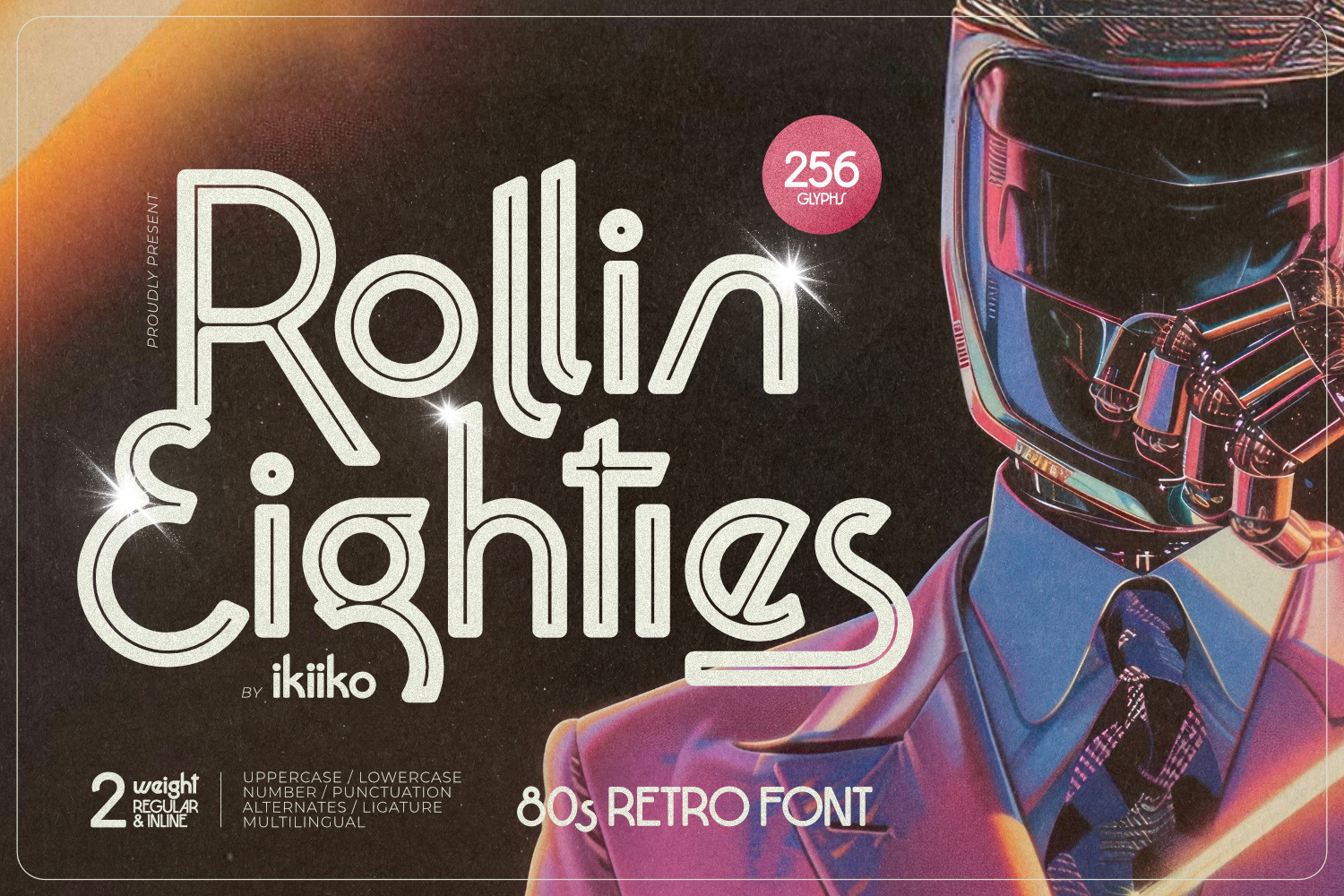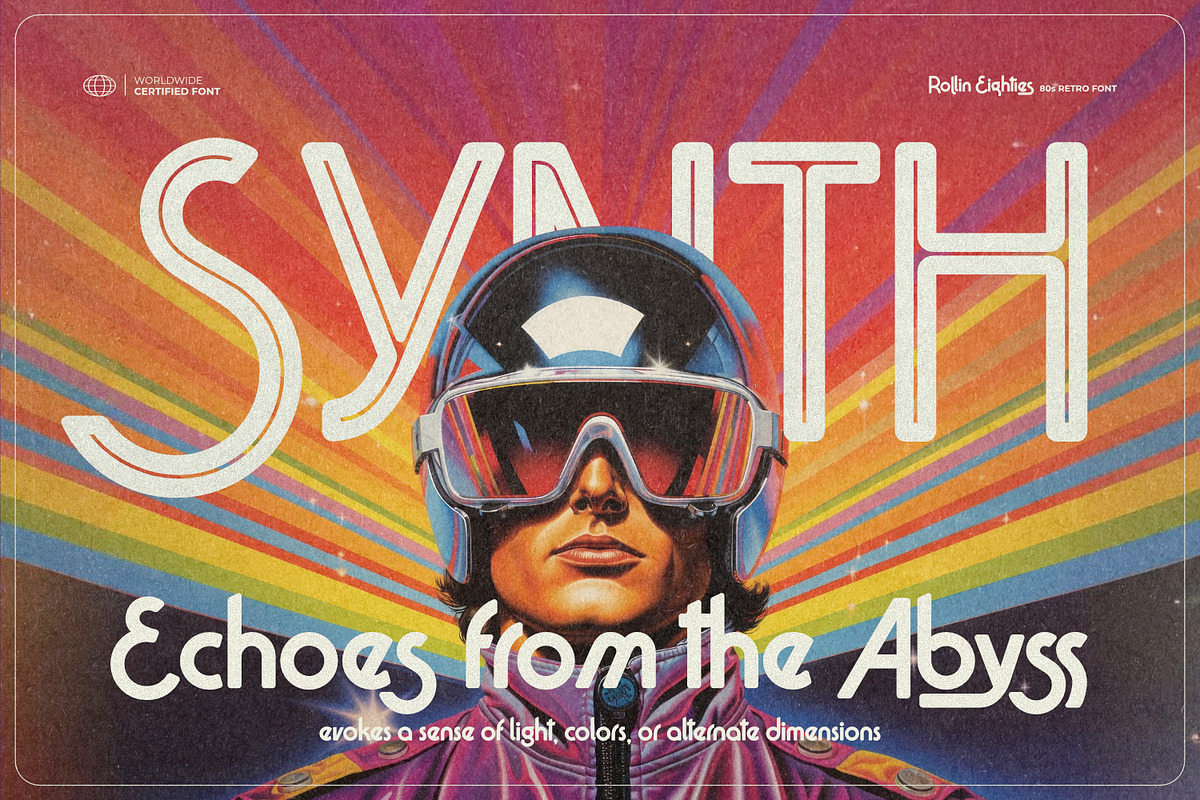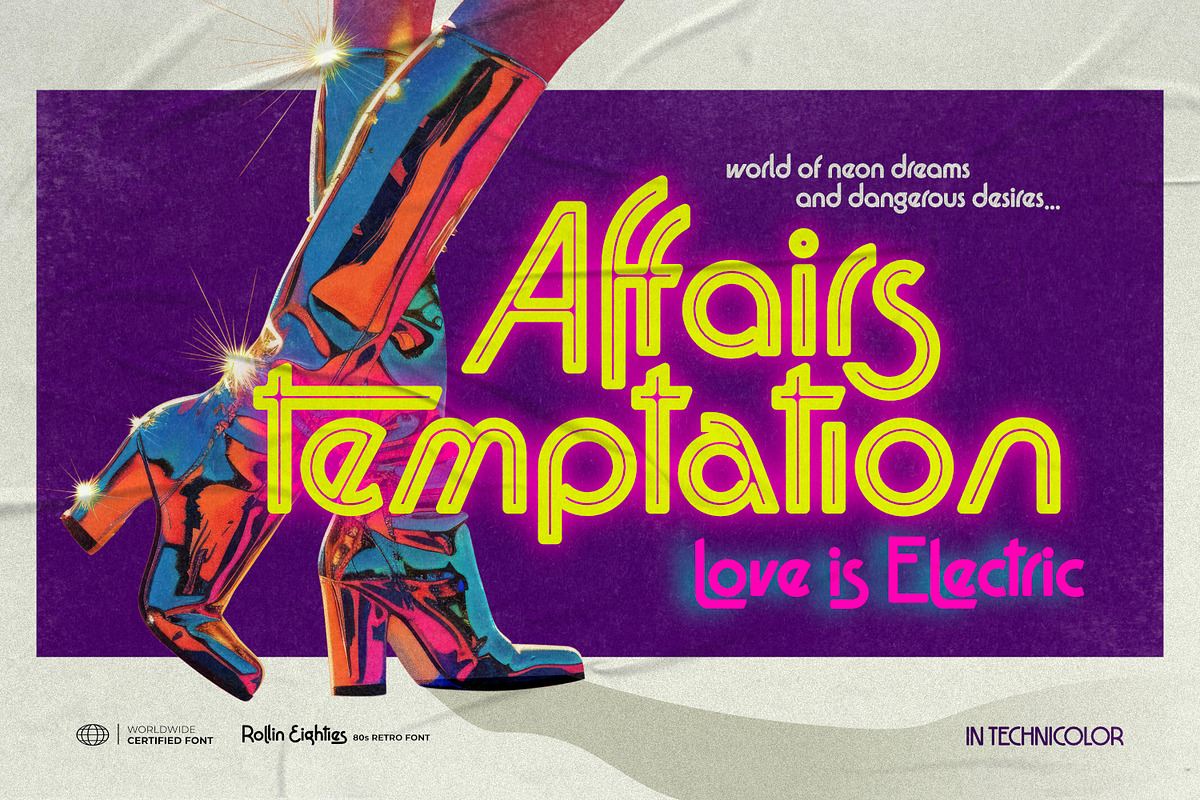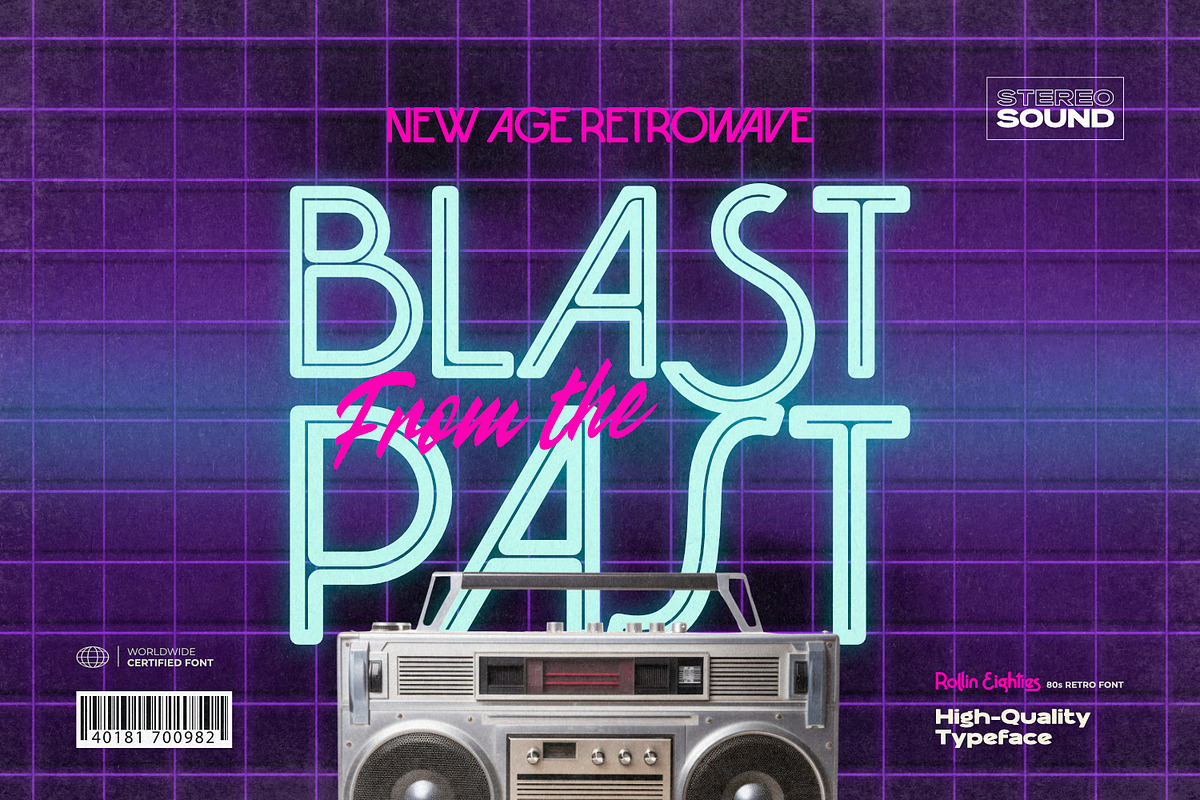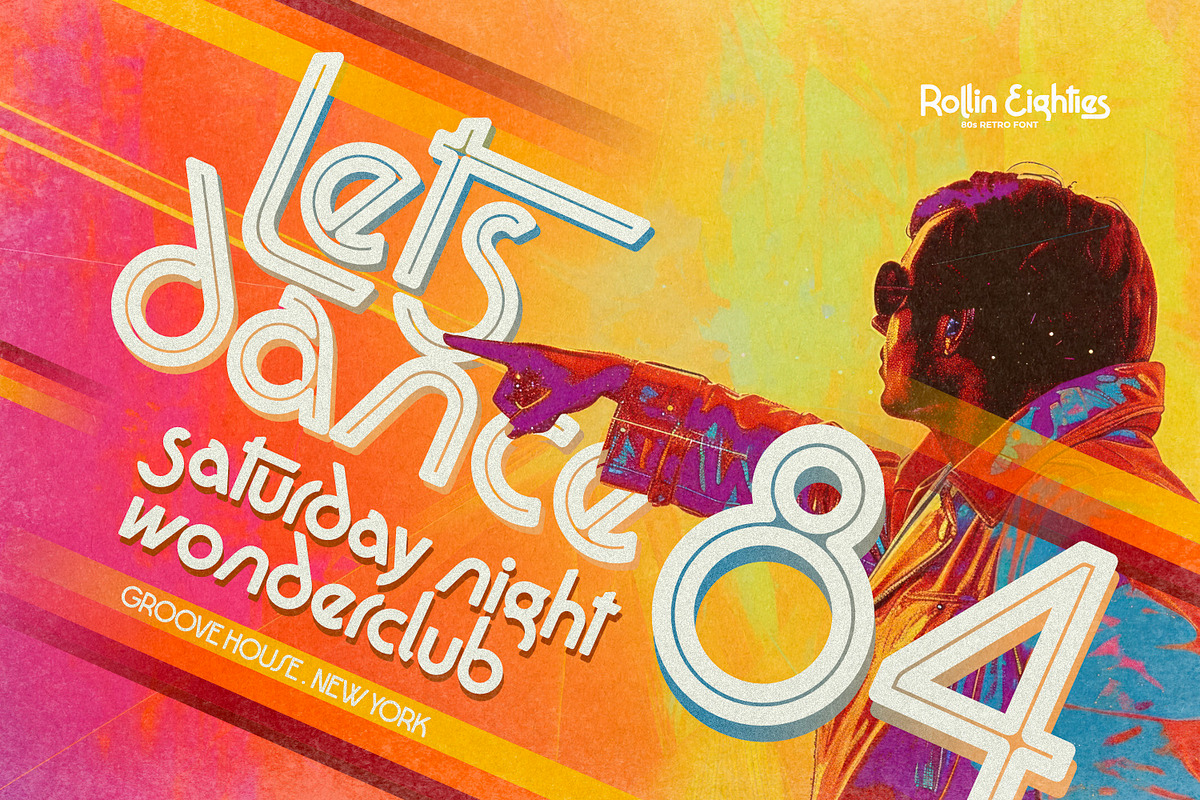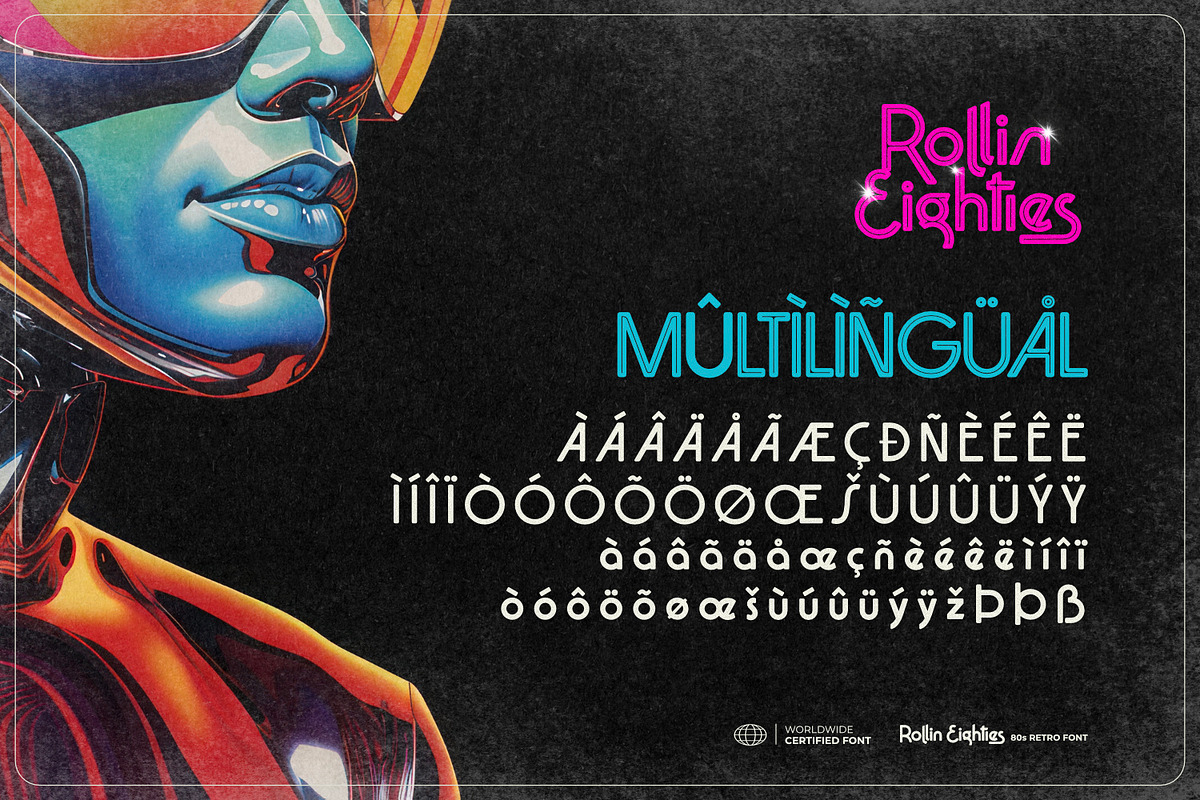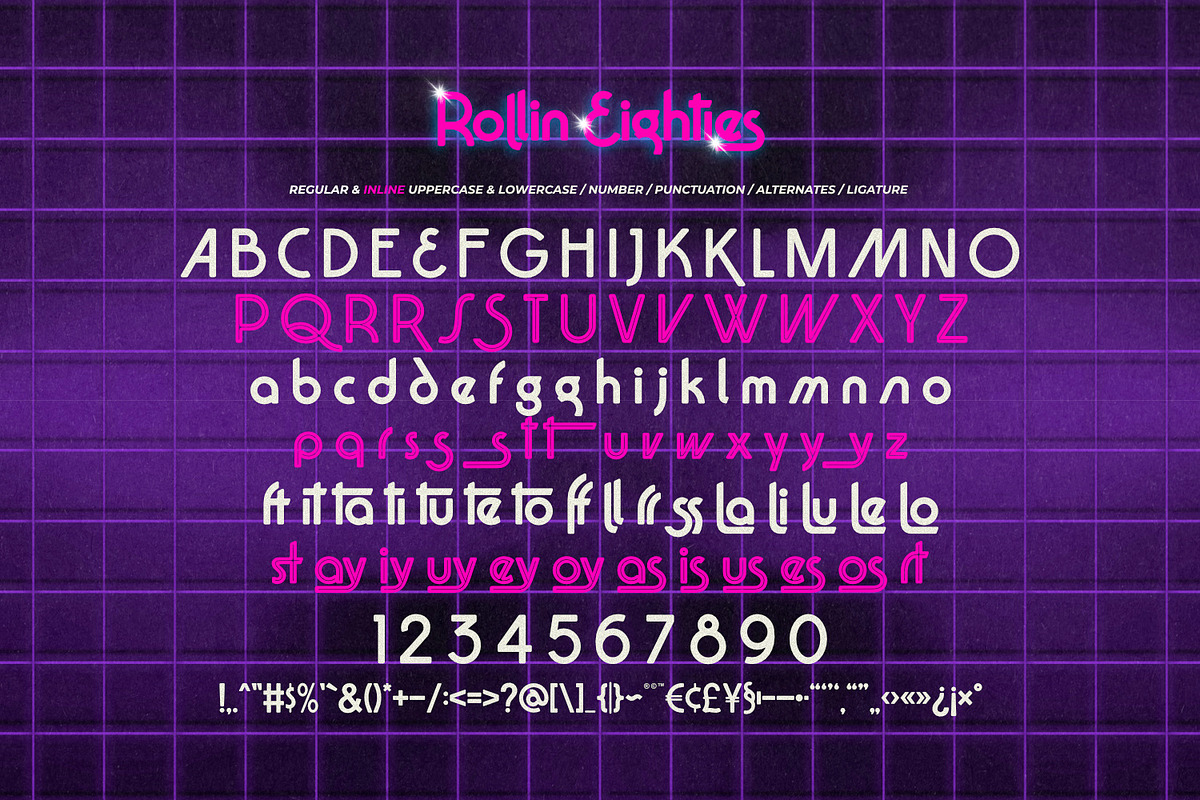
Rollin Eighties - 80s Retro Font
Proudly present Rollin Eighties - 80s Retro Font, created by ikiiko.
Step into the electric pulse of the past with Rollin Eighties, a font that captures the essence of the 1980s in all its neon-lit, dancefloor-glamour glory. This font is available in two bold styles—Regular and Inline—Rollin Eighties is a masterful blend of retro nostalgia and futuristic allure, crafted for those who dare to revive the high-energy vibes of disco and dance with a twist of science fiction intrigue.
Channeling the glitz of retrowave aesthetics and the cinematic style of 80s movies, this typeface feels right at home in smoky arcades, laser-filled clubs, or digital landscapes of a cybernetic future. With sharp lines and dramatic curves, Rollin Eighties is the ultimate homage to the era of big beats, bold colors, and boundless imagination.
This font is perfect for a movie posters, club flyers, or any design that craves that unforgettable 80s vibe & transports you to a world where synth beats and sci-fi dreams collide, capturing the essence of a time when the future felt neon-lit and limitless.
- 2 Weight : Regular & Inline
- Alternates & Ligature